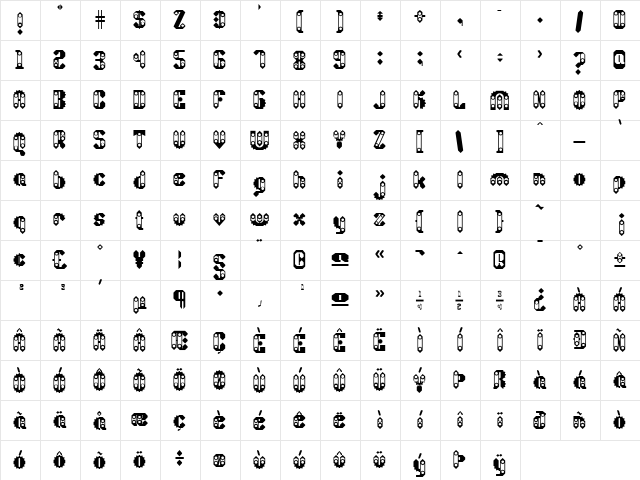
Sprokett Regular
Design Context for Sprokett Typeface
Sprokett is a composed and adaptable typeface that performs quietly and consistently across a wide range of design contexts.